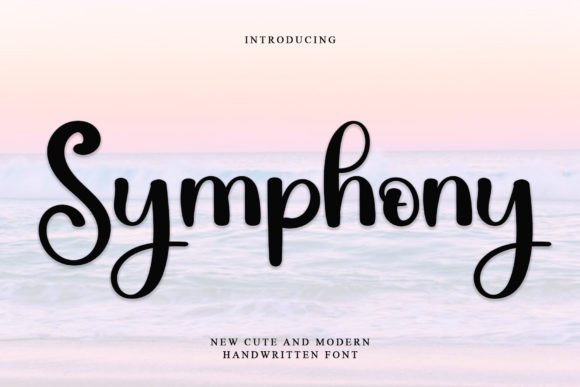
Symphony Font - A Handcrafted Masterpiece for Your Next Project
In the realm of typography, where words dance and emotions ignite, Symphony Font emerges as a true masterpiece. Created by the renowned PiPi Creative, this script font embodies elegance, sophistication, and boundless creativity.
Symphony's graceful curves and flowing lines mimic the beauty of a handwritten letter, capturing the essence of human touch and individuality. Its unique and timeless style transcends trends, making it the perfect choice for designers, artists, and content creators seeking to leave a lasting impression.
With Symphony Font, your words will come alive, resonating with emotion and authenticity. Imagine crafting a resume that exudes professionalism and artistic flair, a wedding invitation that whispers of timeless romance, or a marketing campaign that captivates audiences with its visual allure.
Symphony's versatility extends far beyond traditional design realms. Its delicate strokes and charming character add a touch of sophistication to social media posts, website designs, and digital marketing materials, ensuring your brand's message resonates with grace and impact.
Indulge in the Symphony experience and unleash your creative potential. Let your imagination soar as you explore endless possibilities, transforming ordinary words into breathtaking works of art. Symphony Font is not just a font; it's an invitation to embark on a creative journey where your ideas take center stage.